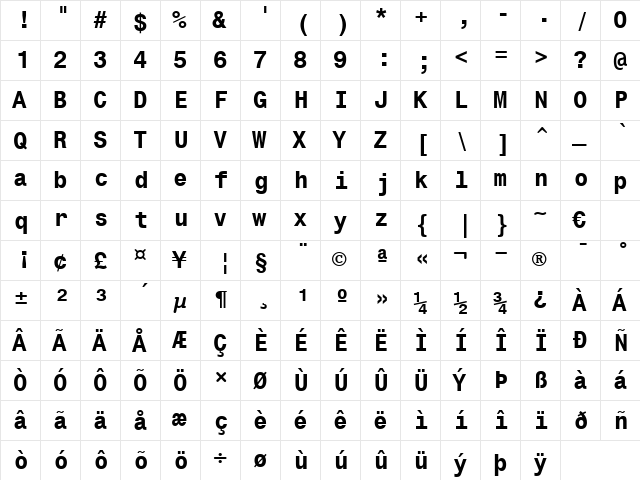
SAS Monospace Bold Regular Font Preview
SAS Monospace Bold Regular
Design Context for SAS Monospace Bold Typeface
SAS Monospace Bold uses fixed-width spacing throughout, giving it the structured, systematic character associated with coding environments and technical documentation. The heavy weight commands attention and anchors typographic hierarchies.
A natural fit for code editors, technical documentation, developer-focused branding, and terminal-inspired UI.
Pro Tip: Pair SAS Monospace Bold with a proportional sans for UI contexts where code-style labels and regular body copy need to coexist.